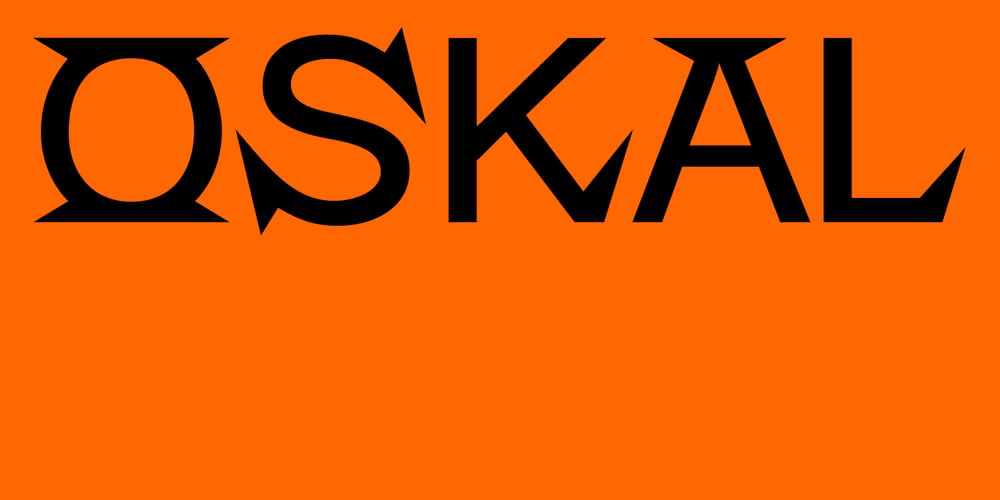
Oskal Font Family was designed by Victor Pesotsky and published by Pesotsky Victor. Oskal contains 1 styles and family package options. “OSKAL” is a font that appeared as an experiment to cross the neutral grotesque and antique. The idea is to make a strange hybrid out of a simple grotesque. The serifs are added in non-standard places and make this font unusual for perception. It’s a sharp and active font that you can shout at or break down walls with.OSKAL supports Basic Latin and Extended Latin, Cyrillic — in total about 90 languages are supported.The font has one Regular weight, uppercase and lowercase, punctuation. OSKAL font was designed by Viktor Pesotsky.